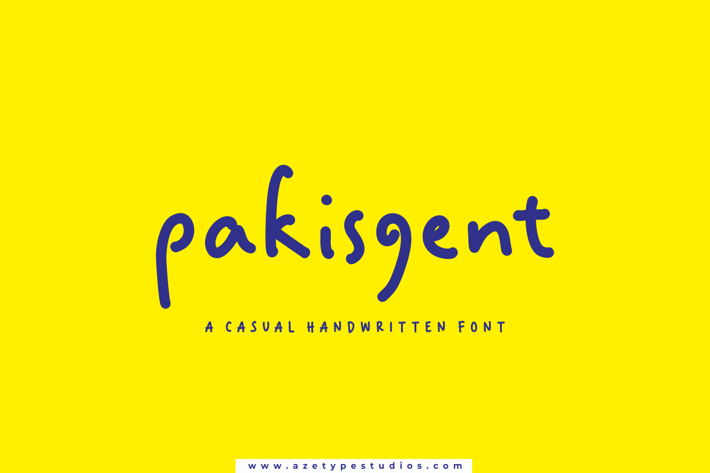
Pakisgent
Introducing, Pakisgent is a handwritten font with the casual style suitable for your design project needs, such as; social media posts, your quotes, overlays on images, tagline logos, posters, print needs, website banners, and more.
A set of uppercase and lowercase glyphs
Number, symbol, and punctuation
Multilingual accent ( ́ ̂ ̀ ̊ ̈ ̃ ̄ ̌ ̆ ̨ ̧ ̇ ̋ ̒ ̦ ̍ ̶ )
Some multilingual glyphs (ÆØŒæðøœß¡¿)